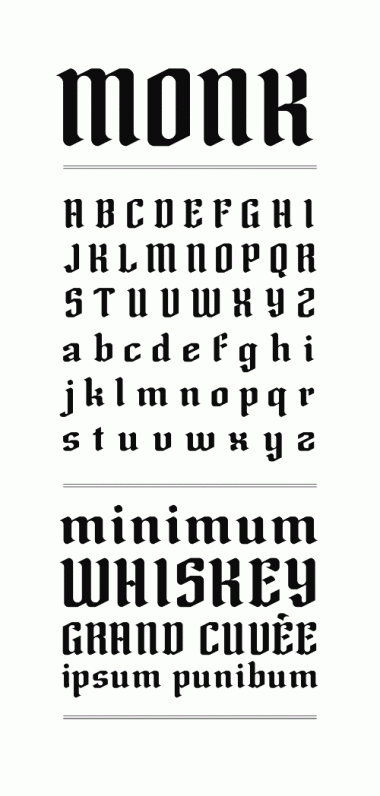
Great stuff. I really love the lowercase...m, n, u, and x are great.
The word "minimum" in your sample makes me weak in the knees.
maybe the cleanest blackletter so far... coolio
Me too. ;)
10/10 from me.
While I totally agree with the 10/10 comment (Great work, Axel :), I did not post the comment directly above. It's some glitch, in the FontStruct back end (a true Ghost in the Machine).
I only say this now because the comment directly above is nice, but someday some nasty comment may be mis-labeled as coming from me. Let me state this for posterity that no matter what happens, I, minimum, will never say anything bad about anyone's creative output and hard work.
Really slick stuff. 10/10
I agree with kix...this is as clean as it gets!
impressive!
cool!
Wow. really good. some characters still need some fine tuning but the overall is impressive.
Nice work
Mmm, mmm good. :)
Cleeeean. A very friendly blackletter.
I like it very much. Especially the diacritics.
an instant classic :)
On using this font the kerning/spacing really needs addressing. It isn't constant between letters.
@ djnippa: "Yes... You're right, it needs a better kerning/spacing...but there's not much possibilities in this range with the fontstruct tools...
Problems come when putting toghether two round letters combination like: oc,bd,pq...
Neither solution I've tried was ok, so I've choose the one that affect less glyphs combinations.
Any recomendations & ideas about this issue are welcome!
Meanwhile, the people who want to use this font are going to need making some adjustments on it.
Jesus, Mary!
Gooood~!!
Hello, Axel. I just found this site and it's terrific! I really like this font. Regarding the kerning problems. I used to do calligraphy by hand. One of the things that hand done calligraphy has that computer fonts don't, is that there is always some tiny variation no matter how well done it is. Even on the very old typesets, there was variation. I guess what I am trying to say is that while exact spacing is necessary for many works, sometimes you need fonts that have that little variation, so that it looks more handmade which lends its own special charm to a work. Anyway, it's beautiful. Thank you for sharing this.
THE CLEANEST EFFING BLACK LETTER IN THE UNIVERSE.
This font is REALLY good. I don't believe it! 48579104658613490561394569315/10!
I think its scary when you can see [strike]1[/strike] 0 MISTAKES!
UBER DUBER FONT!
If this isn't professional, I don't know what is!
cool this font.
I have to vote a 10 to this. (Unique design of accents though, just have to explain it a bit to Vietnamese people, because the grave looks more like the hookabove to me)